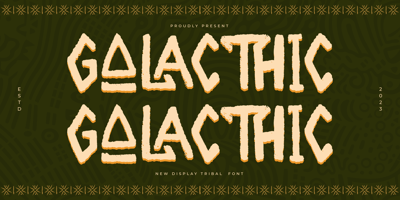
Galacthic Font Family was designed by Heru Utama Putra and published by Letterena Studios. Galacthic contains 2 styles and family package options. Proudly present Galacthic Typeface , created by Storytype,A serif modern and classic typeface that has own unique style & modern look.This typeface is perfect for an elegant & luxury logo, book or movie title design, fashion brand, magazine, clothes, lettering, quotes, and so much more.